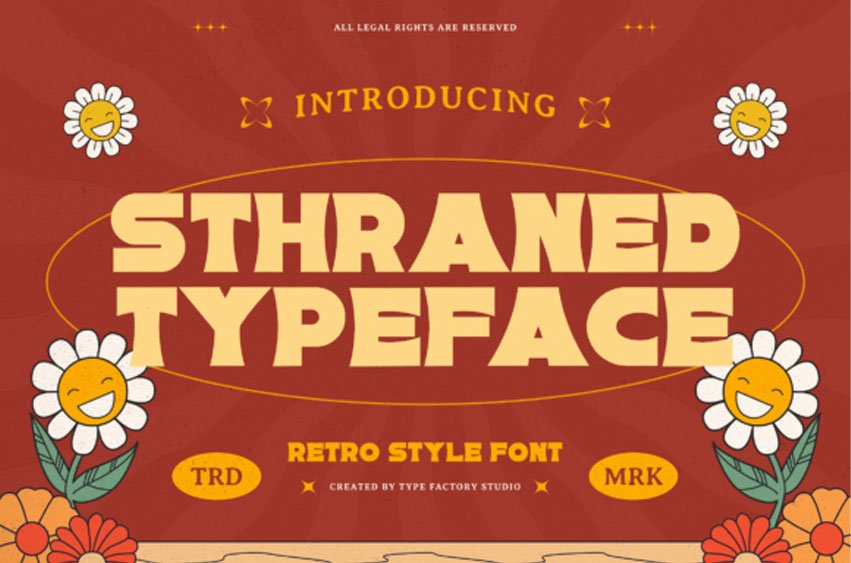
Sthraned Font is a retro groovy display typeface inspired by classic 70s typography and vintage graphic design. The characters feature bold rounded shapes and playful curves that create a strong nostalgic personality.
This font is designed for display purposes and works well for posters, music covers, festival graphics, packaging, branding, and creative editorial layouts. Sthraned includes uppercase and lowercase characters, numerals, punctuation, ligatures, and multilingual support, allowing designers to create expressive typography with a retro visual style.